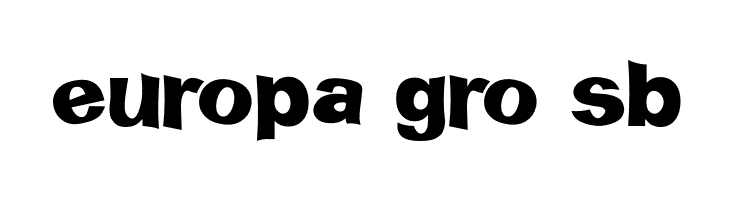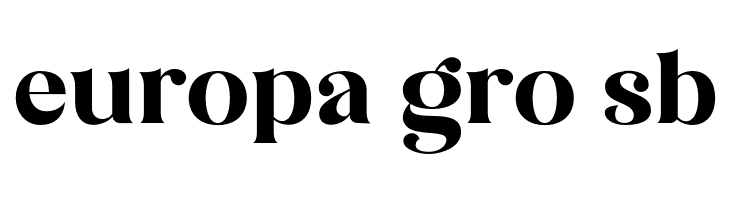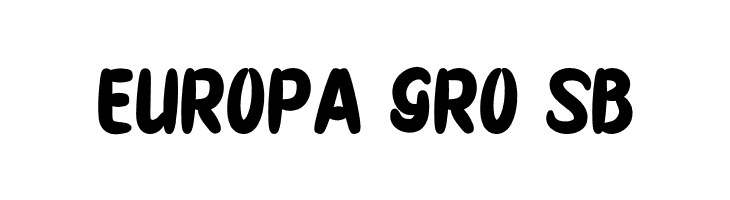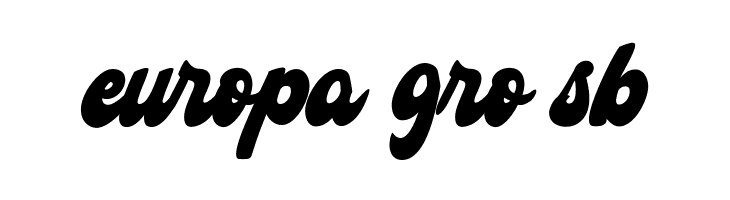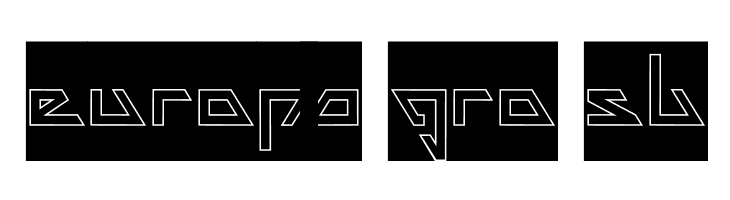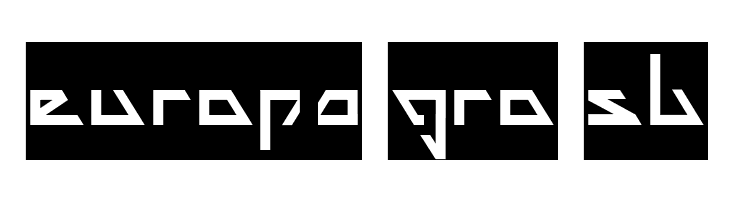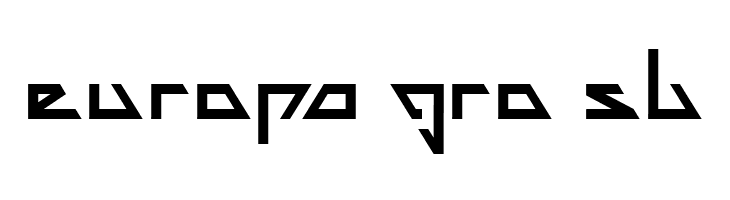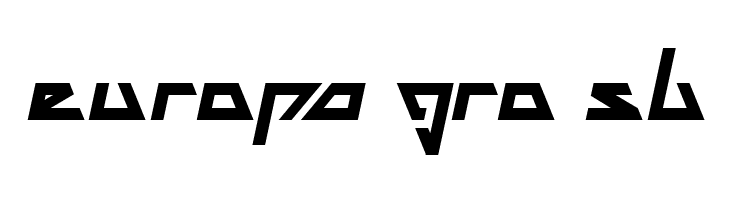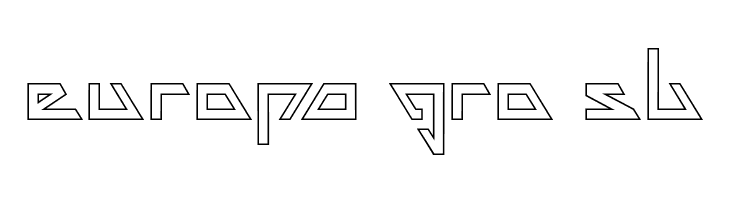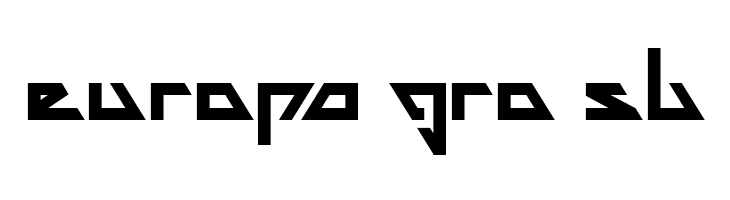
A bold serif font with dramatic contrast and elegant style.
A playful and elegant script font with smooth, flowing curves.
A bold, playful font with a hand-drawn, artistic style.
A bold, playful font with exaggerated strokes and a whimsical style.
A playful, handwritten font with bold, rounded characters and a casual style.
A modern, geometric font with clean lines and a uniform appearance.
A modern, geometric font with clean lines and a minimalistic style.
A dynamic and expressive handwritten font with fluid, cursive letterforms.
A playful, casual font blending script and sans-serif styles.
A playful, handwritten font with a casual, flowing script style.
A bold, italic, angular font with a futuristic and dynamic style.
A geometric, angular font with a hollow outline and futuristic style.
A hollow, geometric font with sharp angles and a futuristic style.
A bold, flowing script font with smooth, continuous lines and a modern elegance.
A bold, high-contrast serif font with sharp serifs and dramatic style.
A bold, playful font with rounded edges and a hand-drawn style.
A bold, playful font with exaggerated curves and a whimsical style.
A whimsical, decorative serif font with playful curls and loops.
A bold, geometric font with strong Art Deco influences and angular forms.
A bold, graffiti-inspired font with sharp, angular lines and dynamic style.
A modern, geometric sans-serif font with balanced proportions and medium contrast.
A bold, modern sans-serif font with strong geometric shapes.
A bold, modern sans-serif typeface with excellent readability and versatility.
A modern, bold, and italicized font with medium contrast and smooth strokes.